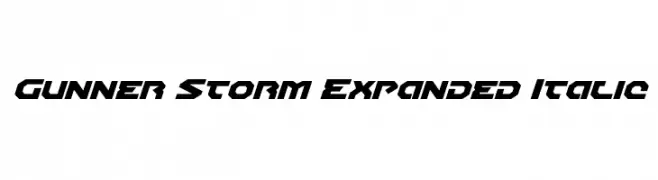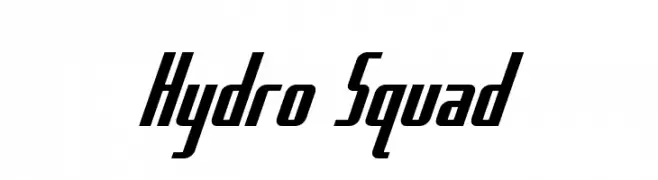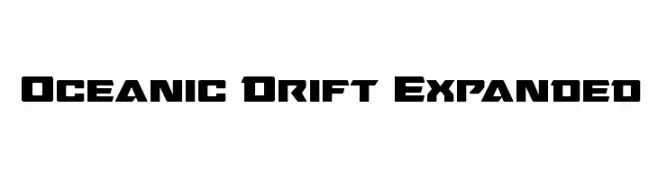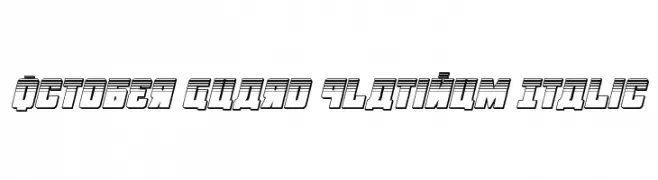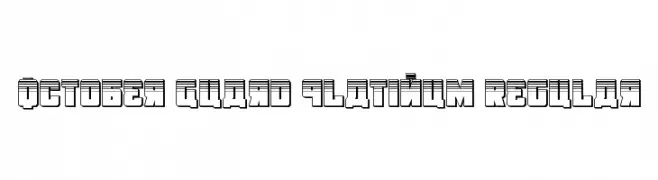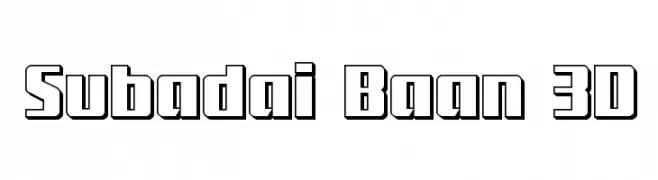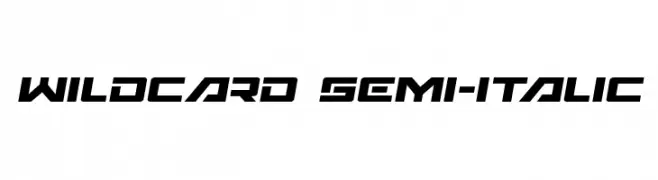
A bold, italic, and futuristic font with sharp, angular characters.
A bold, angular, and slightly italicized font with a futuristic and dynamic style.
A bold, 3D geometric font with a strong, impactful presence.
Bold, italicized font with high contrast and dynamic style.
A bold, geometric font with a futuristic and assertive style.
A bold, angular, and futuristic font with expanded italic styling.
A bold, angular, and futuristic font with an italic slant and expanded width.
A bold, 3D geometric font with strong outlines and a modern style.
A bold, three-dimensional font with a futuristic and industrial aesthetic.
A bold, geometric font with a three-dimensional effect and strong visual impact.